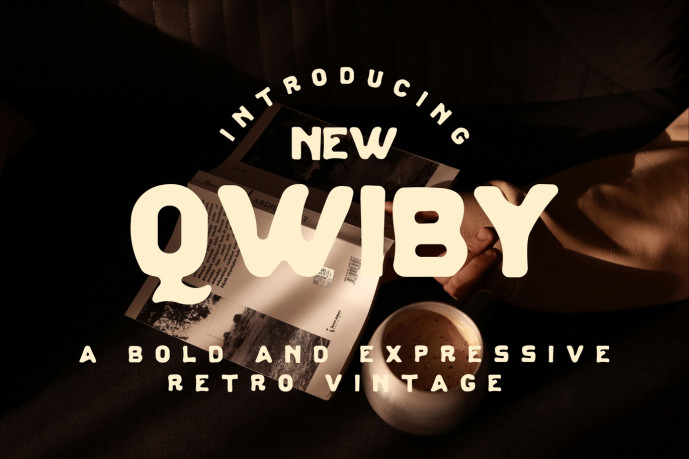
Qwiby Font
Designer: Handraw
Qwiby Font is a bold and expressive retro vintage display font that brings a nostalgic charm to your designs. Inspired by classic signage, old-school posters, and timeless typography, Qwiby combines vintage flair with a modern touch. Its unique letterforms and strong personality make it perfect for headlines, logos, branding, packaging, and any project that needs a stylish, retro-inspired statement. Embrace the charm of the past with Qwiby and let your designs stand out with character and warmth.